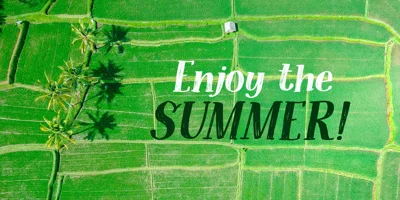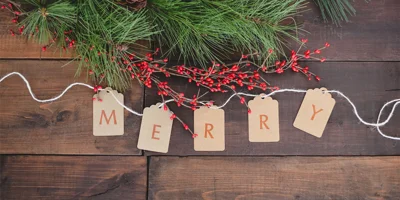
Font Psychology for Better Content Design
Fonts do more than just display text—they evoke emotions, set the tone, and influence user perception. Understanding font psychology can help designers create more engaging and effective content. Let’s explore how different font styles impact audiences and how to choose the right typeface for your message.
1. The Psychology Behind Fonts
Each font style has unique characteristics that trigger specific emotional responses. Here’s how different fonts affect perception:
Serif Fonts (Times New Roman, Garamond, Baskerville)
Convey tradition, professionalism, and reliability.
Ideal for books, newspapers, and formal documents.
Commonly used by prestigious brands (e.g., The New York Times, Vogue).
Sans-Serif Fonts (Helvetica, Futura, Arial)
Modern, clean, and minimalistic.
Often used in tech and digital platforms for readability (e.g., Google, Facebook).
Suitable for websites, apps, and contemporary branding.
Script Fonts (Lobster, Pacifico, Brush Script)
Express elegance, creativity, and personalization.
Best for invitations, artistic brands, and boutique businesses.
Evoke a sense of warmth and authenticity.
Display Fonts (Impact, Bebas Neue, Cooper Black)
Bold, dramatic, and attention-grabbing.
Ideal for headlines, posters, and advertisements.
Used by brands that want a strong, confident presence (e.g., Netflix, Supreme).
Handwritten Fonts (Caveat, Dancing Script, Amatic SC)
Feel personal, informal, and approachable.
Great for storytelling, personal blogs, and casual brands.
Creates a sense of connection and sincerity.
2. Choosing the Right Font for Your Design
When selecting a font, consider the following factors:
Audience: Who is your target audience? Formal fonts suit corporate settings, while playful fonts work well for creative projects.
Brand Personality: Does your brand aim to be seen as trustworthy, innovative, or friendly? Fonts should reflect your identity.
Readability: Ensure that the font is legible across different devices and screen sizes.
Emotional Impact: Align font choice with the message you want to convey.
3. Font Pairing Tips for Stronger Content Design
Combining fonts effectively enhances visual harmony. Here are some best practices:
Contrast is key: Pair a serif with a sans-serif font (e.g., Georgia & Open Sans) for a balanced look.
Limit to two or three fonts: Too many fonts can clutter your design.
Match font personalities: A formal serif font shouldn’t be paired with a playful script font.
Use hierarchy: Bold fonts for headings, lighter fonts for body text.
4. Color and Typography: Enhancing Emotional Impact
Color influences how fonts are perceived. Consider these combinations:
Black & White: Classic and high-contrast for readability.
Red & Bold Fonts: Evokes urgency and passion (used in sales promotions).
Blue & Sans-Serif: Represents trust and calmness (seen in corporate branding).
Yellow & Handwritten Fonts: Brings warmth and friendliness.
Font psychology is a powerful tool in content design. The right typography can influence emotions, reinforce brand identity, and improve readability. By understanding the psychological impact of fonts, designers can create more engaging and meaningful visual experiences. Next time you choose a font, think beyond aesthetics—consider the emotions it conveys!